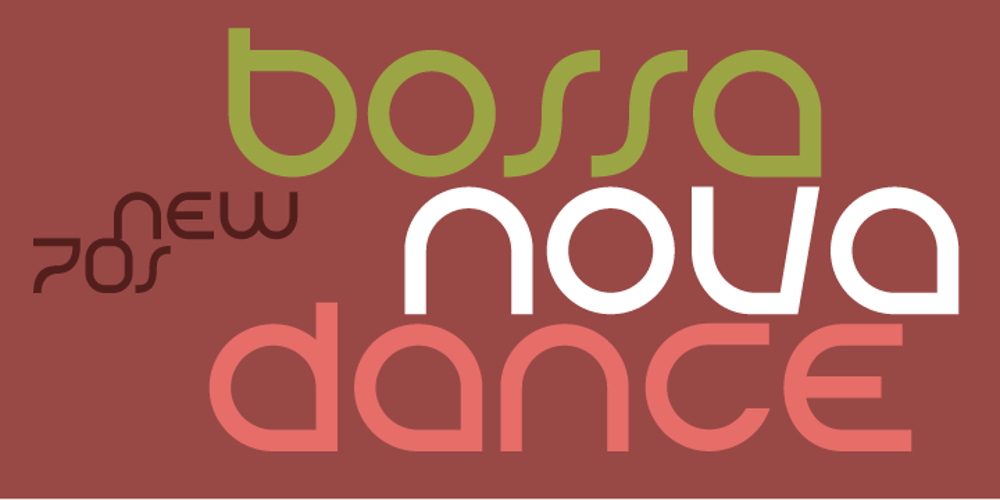
Tierra Font Family was designed by Alejandro Paul and published by Sudtipos. Tierra contains 2 styles and family package options. Tierra is a two-weight font with some unique characters and a techno style.